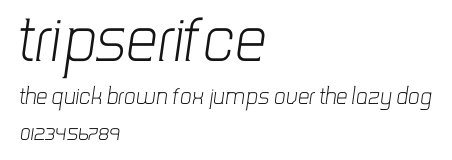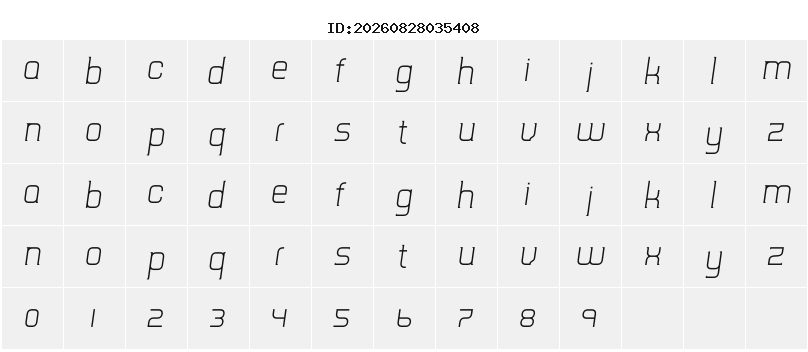
• Font Name: TripSerifCE
• Full Font Name: TripSerifCE Light Italic
• Designer: Matej Syxra
• Manufacturer: Matej Syxra & Jan Moravec, Page42
About TripSerifCE.ttf
TripSerifCE.ttf is a modern, elegant sans-serif font designed for ultimate readability and visual harmony. Perfect for branding, headlines, web design, and print materials.